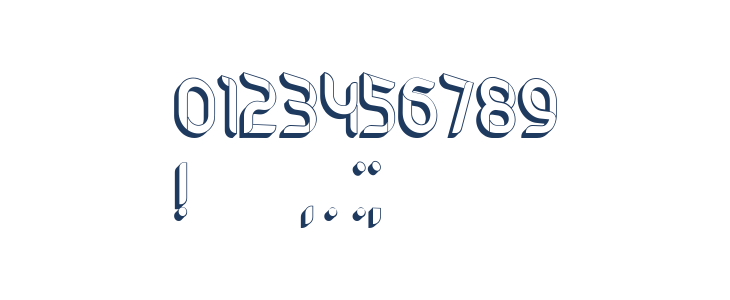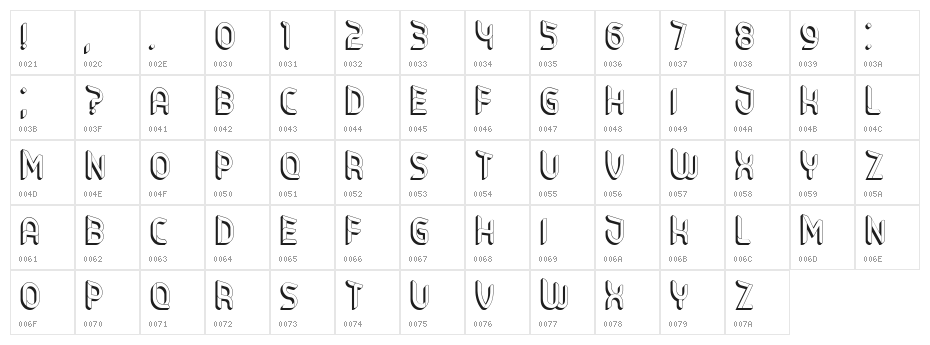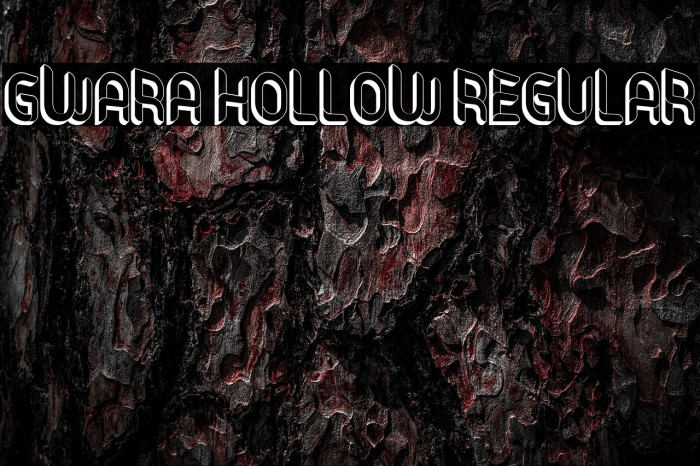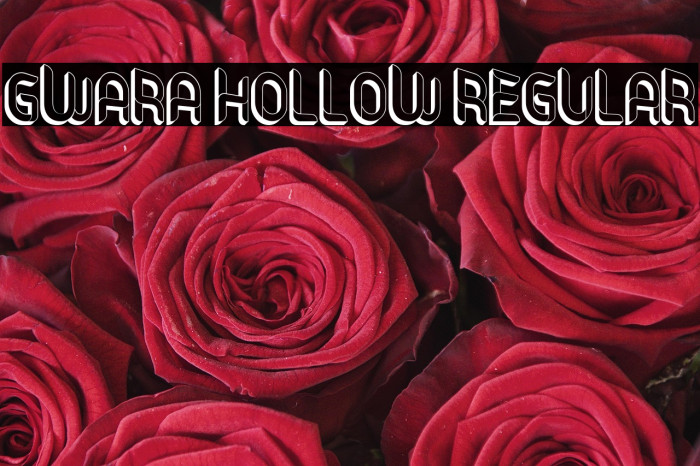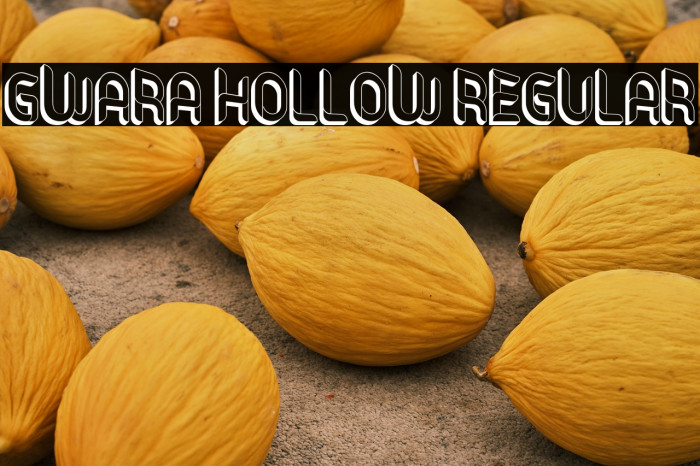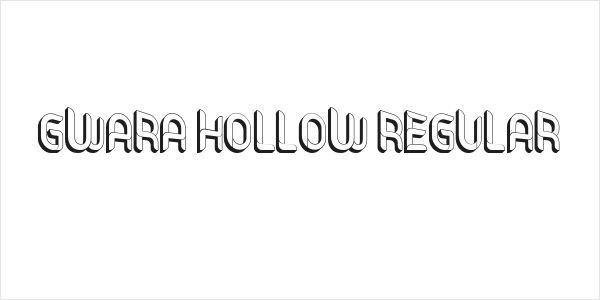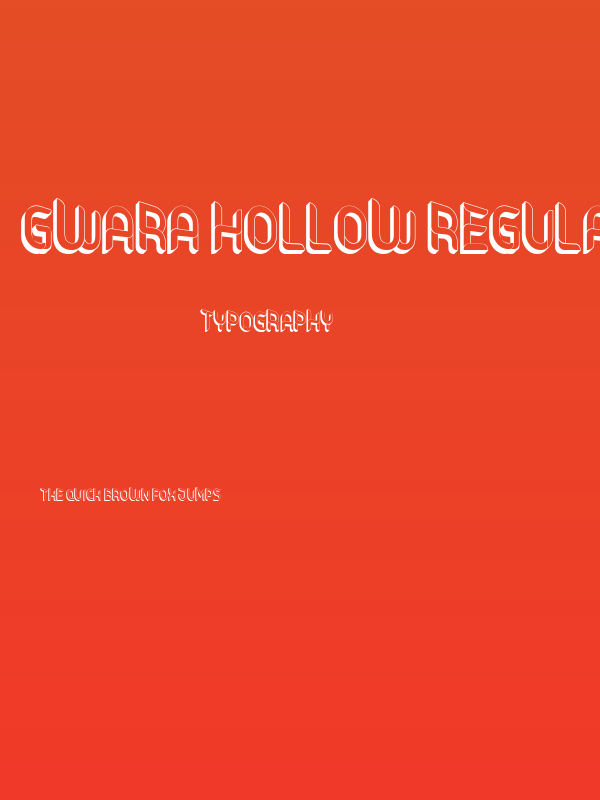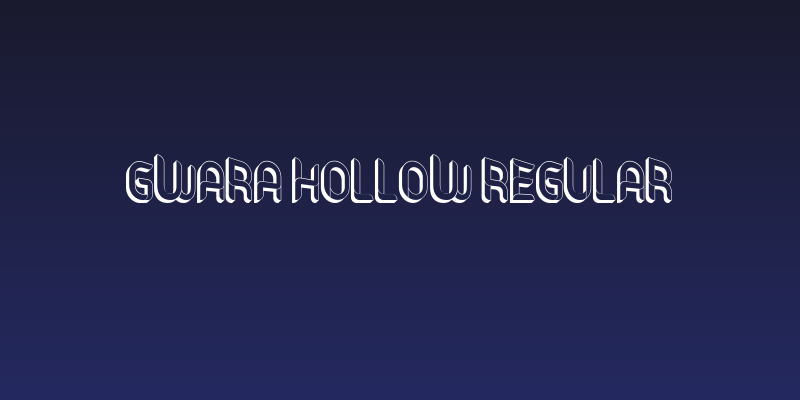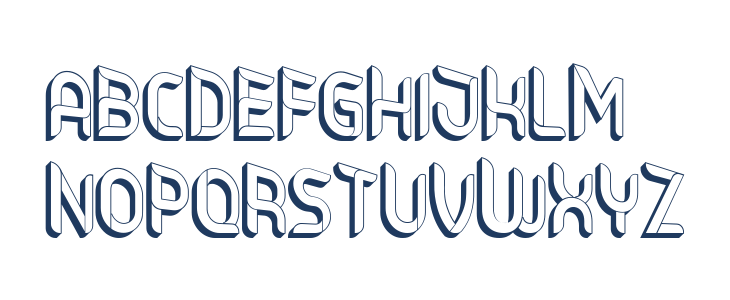
Gwara Hollow Regular Font
Gwara Hollow Regular Description
This font features a bold, three-dimensional appearance with a hollow interior, creating a striking visual effect. The characters are uppercase and numerals, each designed with a shadow that gives a sense of depth and dimension. The style is modern and geometric, with clean lines and sharp angles. The font's unique hollow design makes it stand out, ideal for eye-catching displays. Its structured form and bold presence make it suitable for projects that require a strong visual impact.